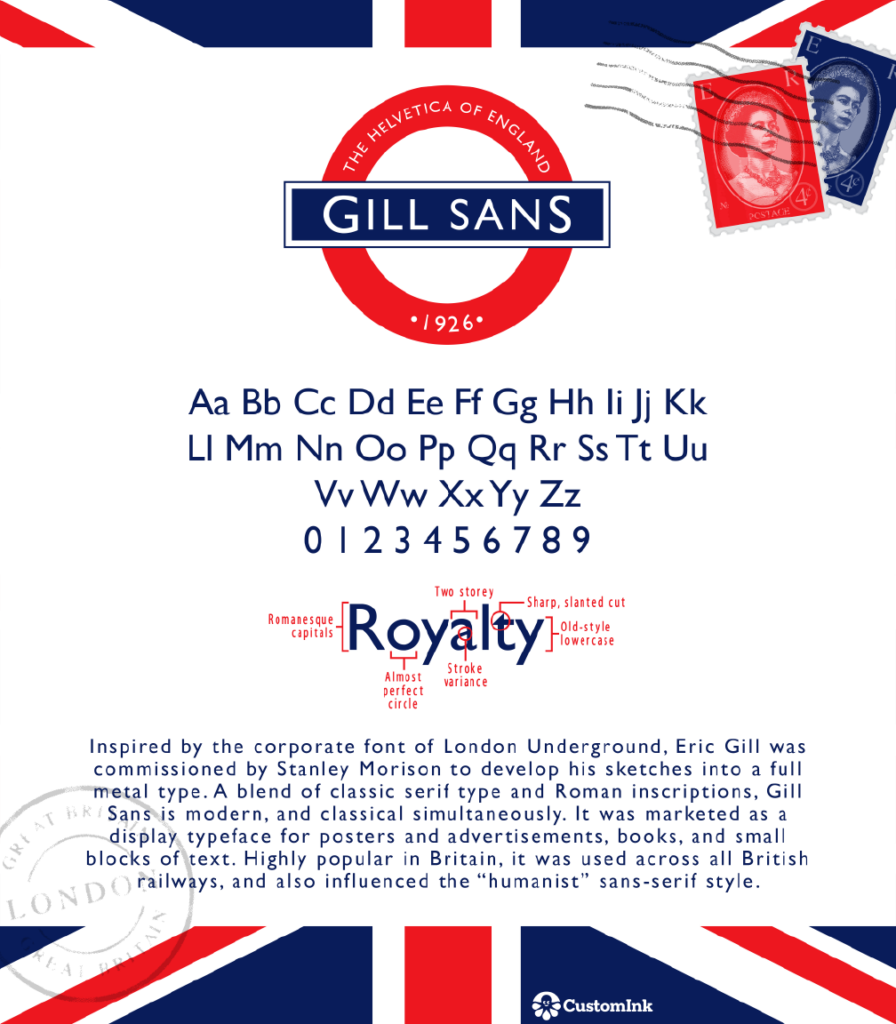
Font of the Week — Gill Sans
Mind the gap! Does Gill Sans look familiar? It’s widely popular for it’s use across all British railways. The iconic font was created by Eric Gill for the Monotype Corporation. Interestingly enough, Gill Sans is considered both modern and classical thanks to it’s perfect blend of classic serif types and Roman inscriptions.